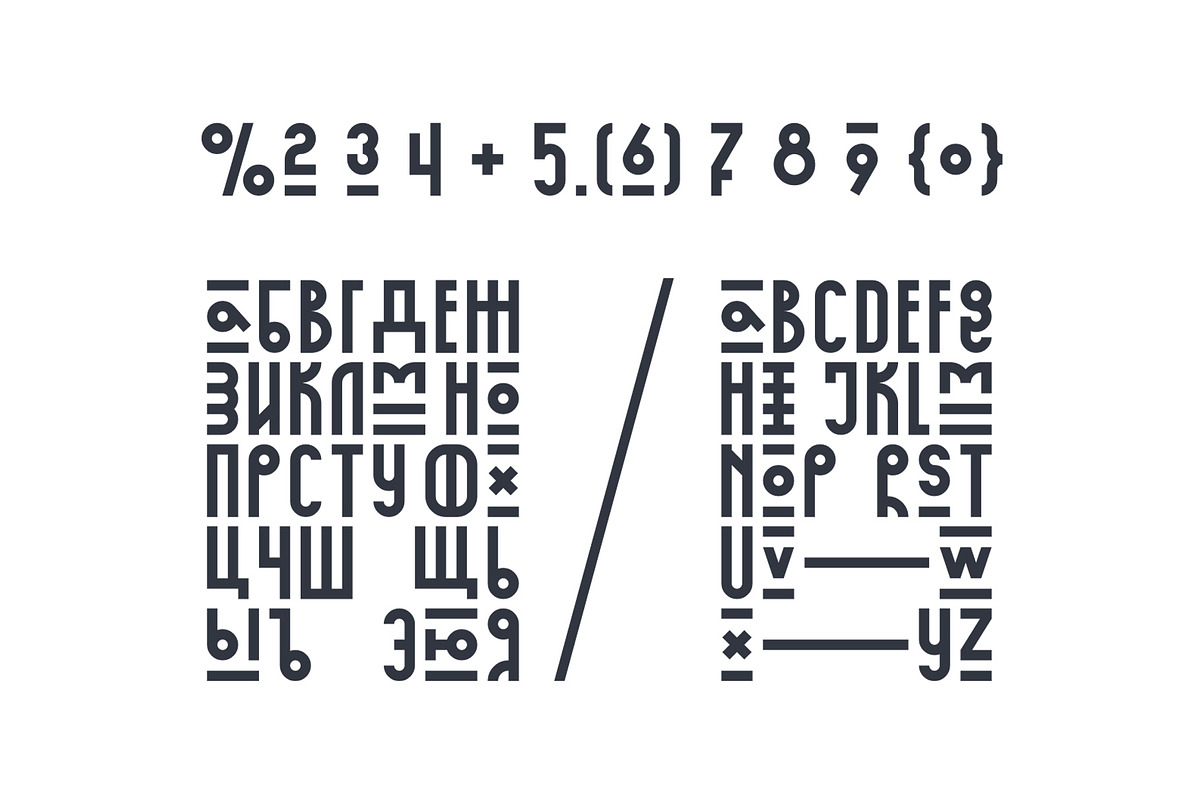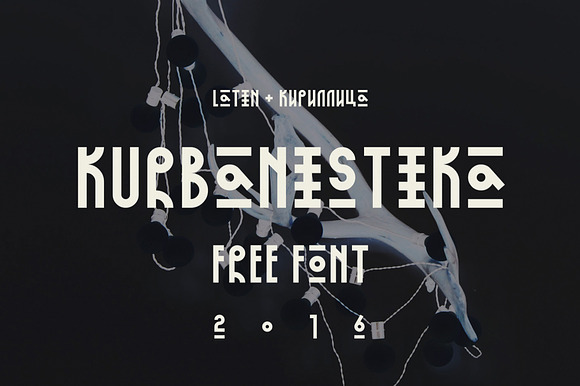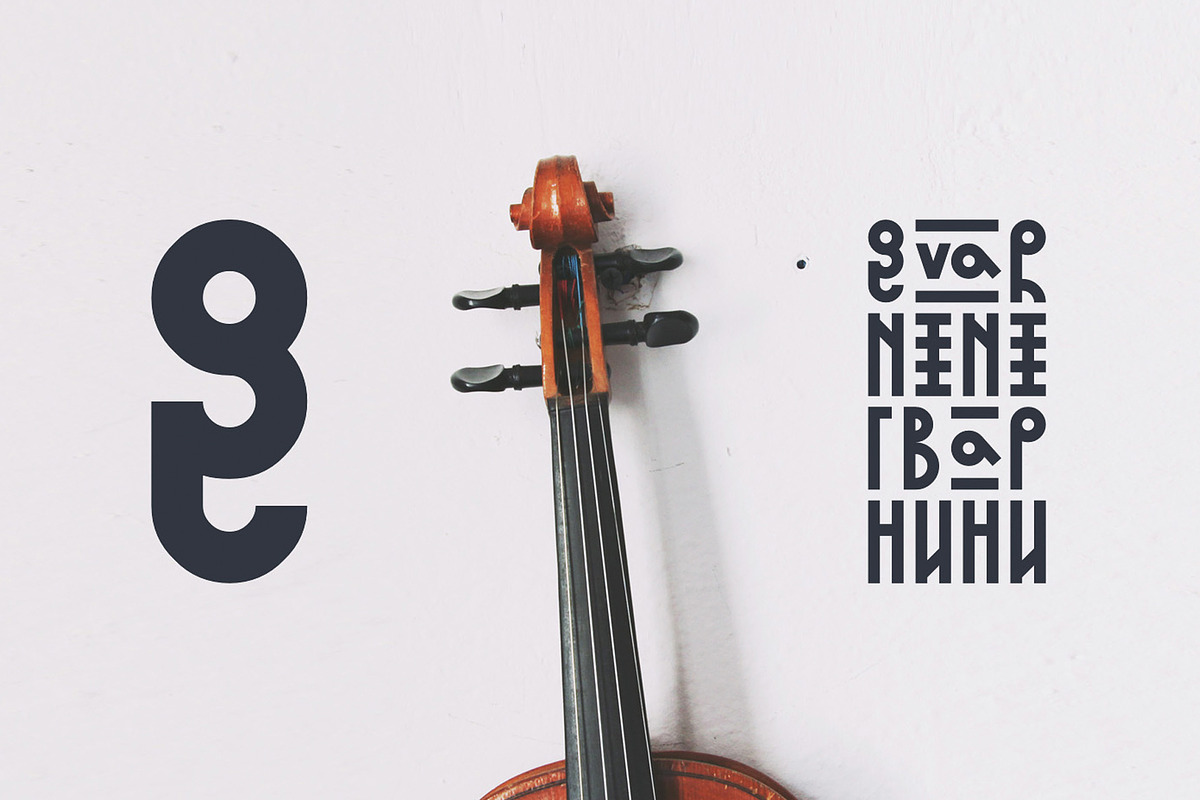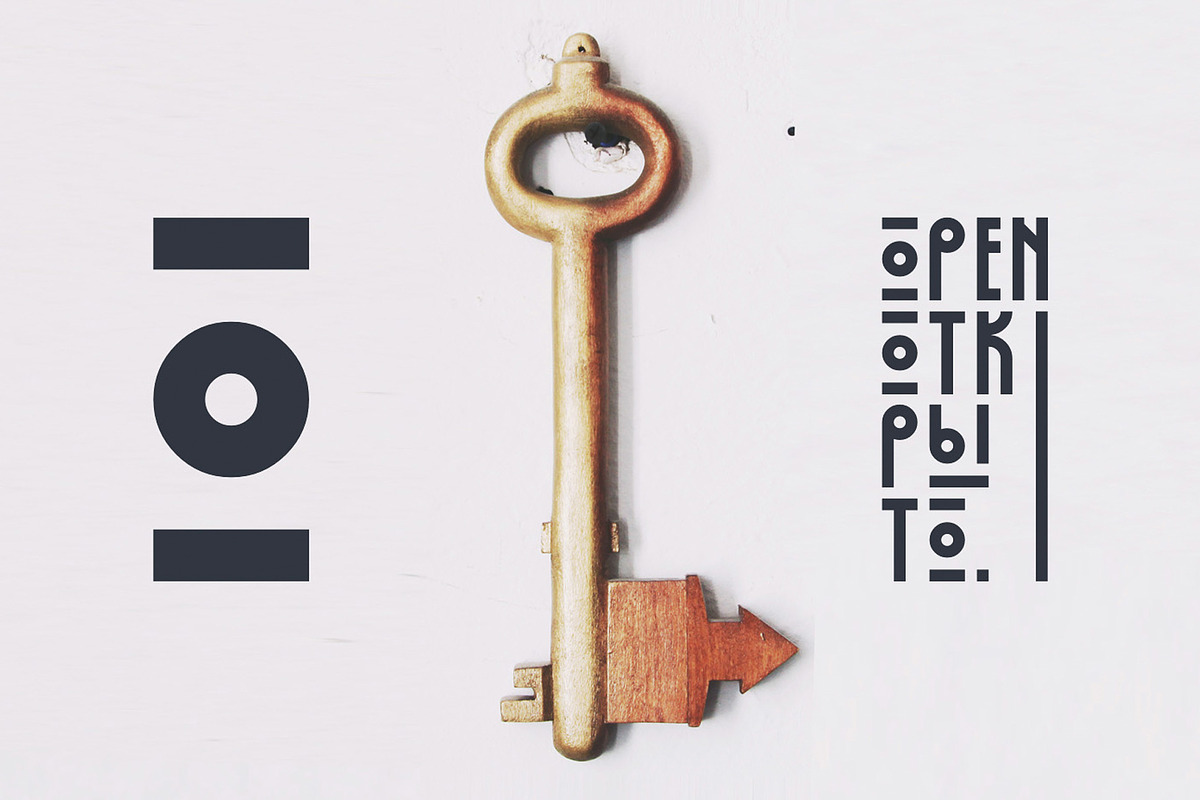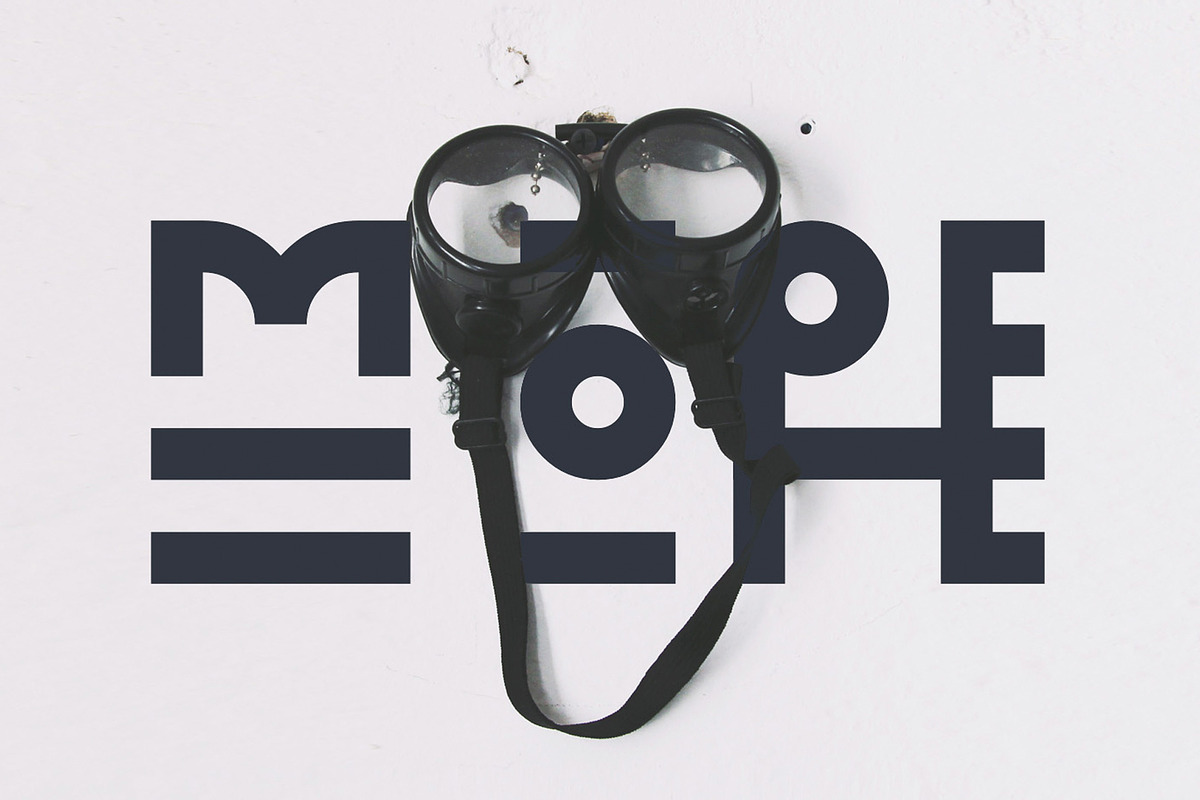
KURBANISTIKA modul font
UPPERCASE MODUL MONOWIDE FONT
Easy to kern and make vivid ligatures
Perfect for titles and logos
Looks great with any with photography and any graphics
Why KURBANISTIKA modul font is worth a look
KURBANISTIKA modul font by MishaPriem fits naturally into Branding, posters, packaging, typography.